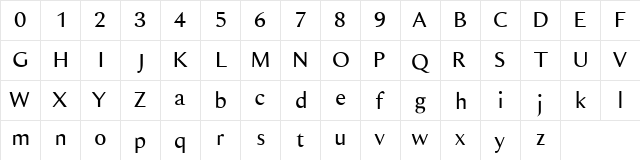
Fabyen Demo Regular
| Foundry | Creativetacos |
| Designer | Faraz Ahmad |
Design Context for Fabyen Demo Typeface
Fabyen Demo offers clean, dependable letterforms without strong stylistic allegiance, making it a practical choice for designers who need flexibility.